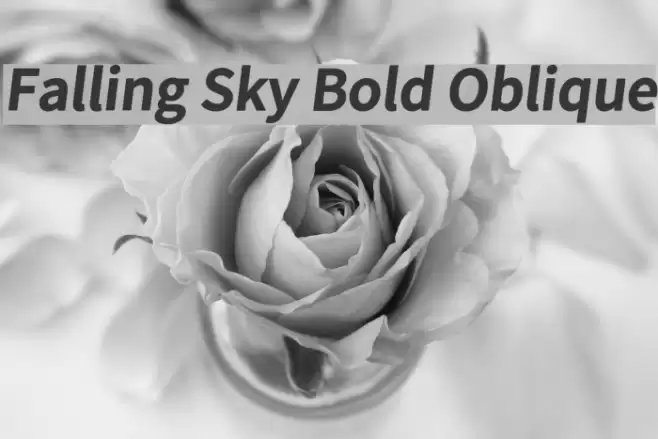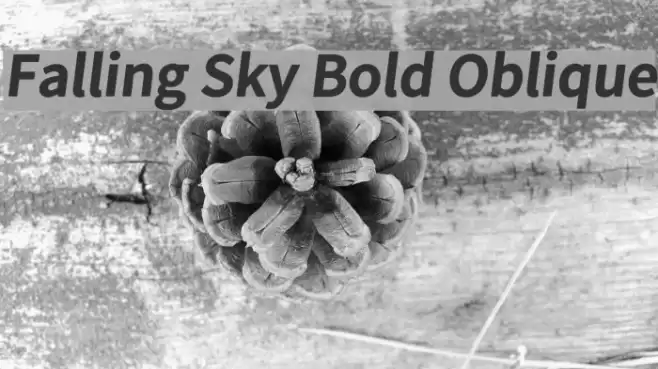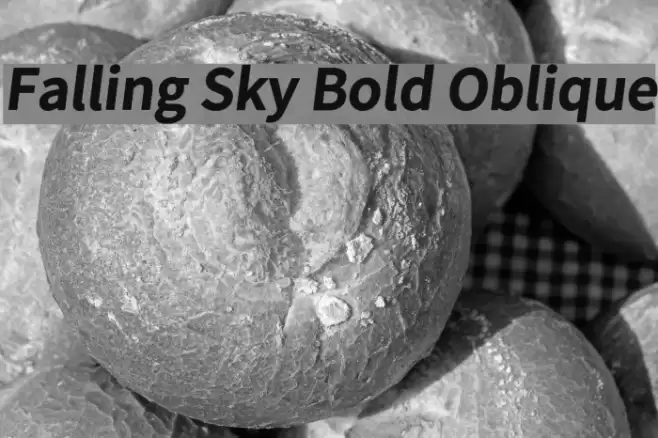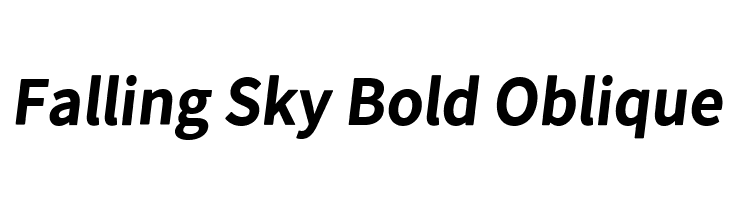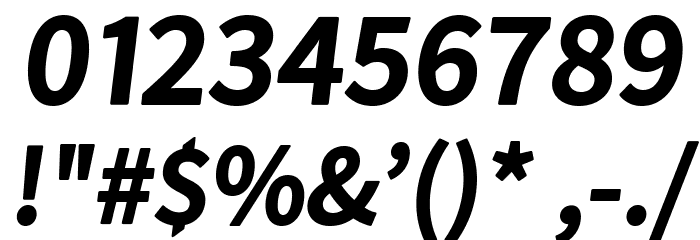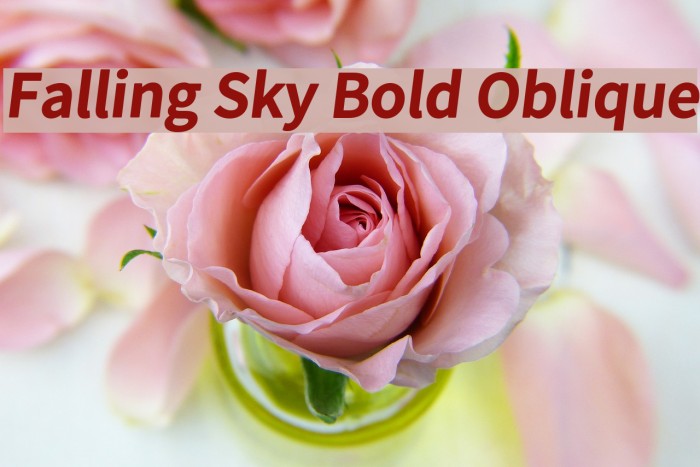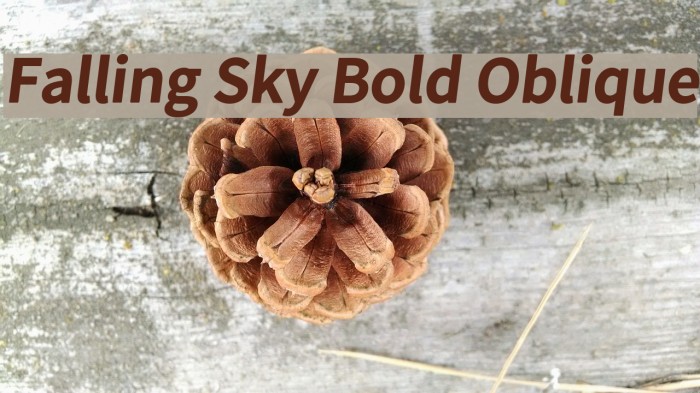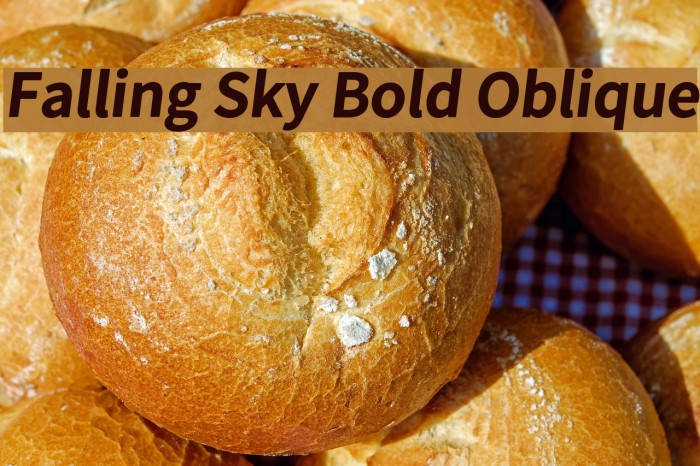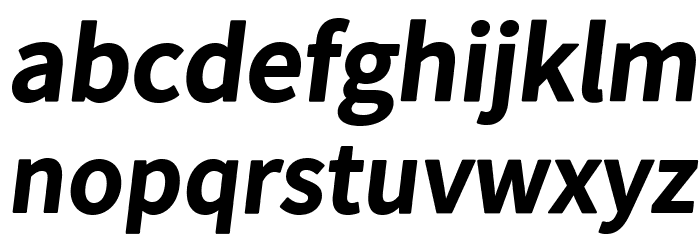
Falling Sky Bold Oblique
This font features a bold and oblique style, characterized by its strong presence and dynamic slant. The letters are well-defined with a consistent stroke width, providing a modern and assertive appearance. The uppercase and lowercase letters maintain a uniformity that enhances readability, while the numerals and special characters are crafted to match the overall aesthetic. The font's design is clean and versatile, making it suitable for various applications where a bold statement is needed.
A bold, oblique font with a modern and assertive style.
- Proposed Projects: Ideal for headlines, posters, branding, and advertising where a strong impact is desired.
- Use Case: Headlines, Logos, Posters